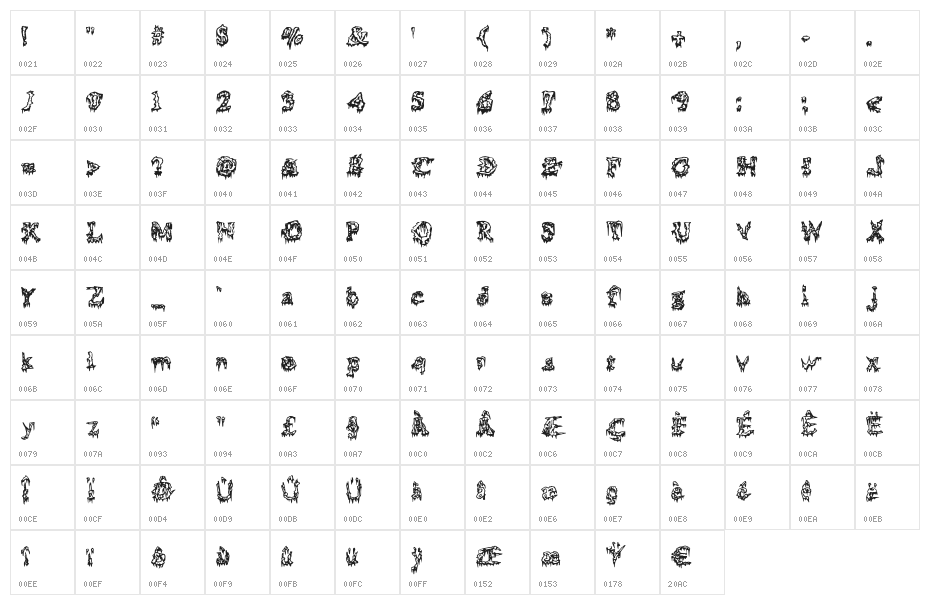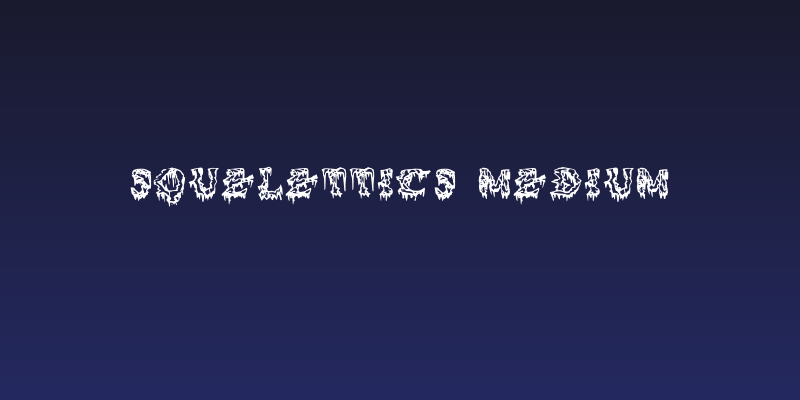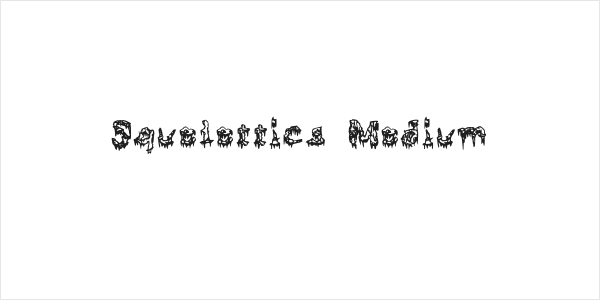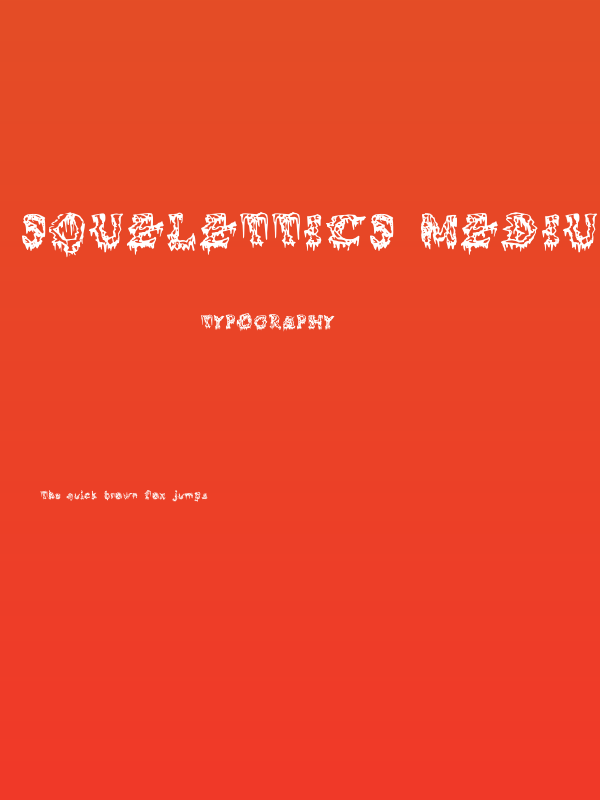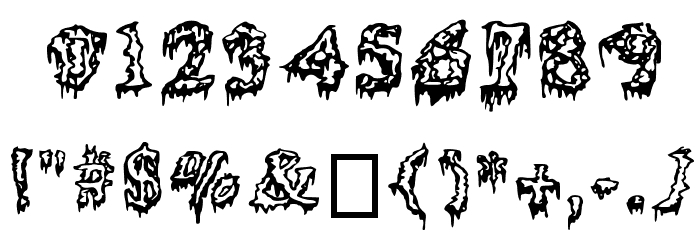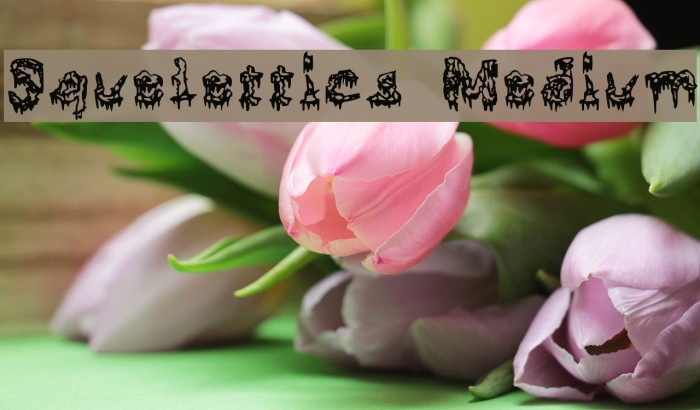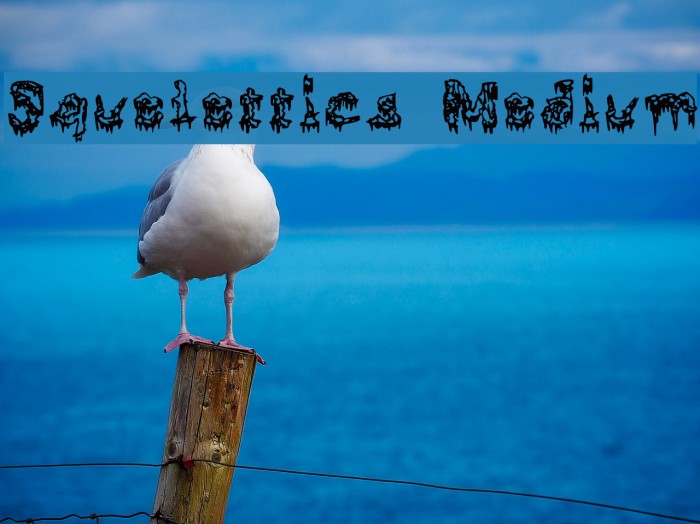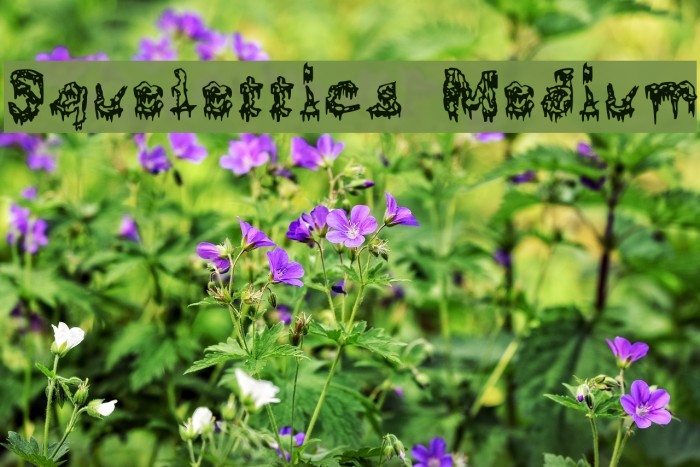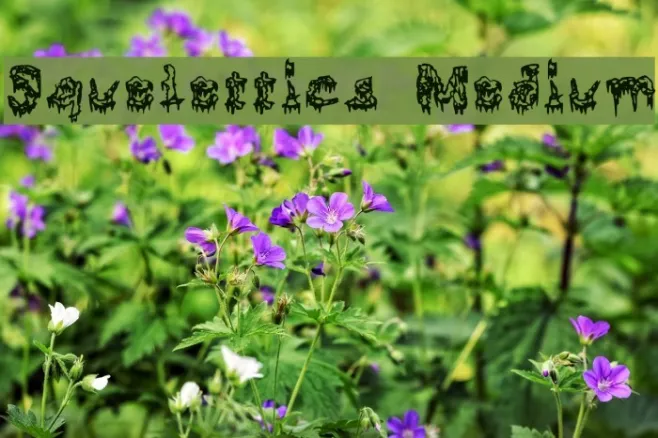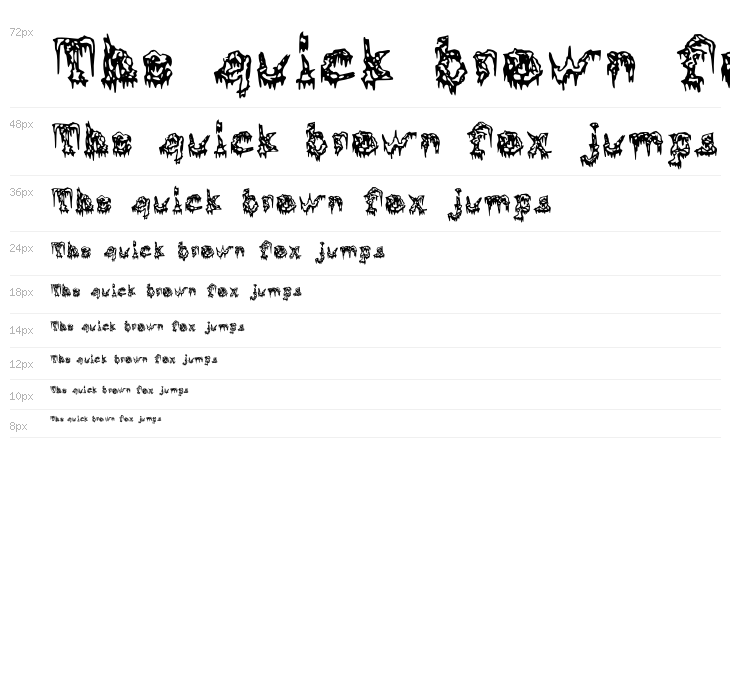
Squelettics Medium Font
Squelettics Medium Description
This font features a highly decorative and unique style, reminiscent of dripping or melting forms, giving it a spooky and eerie appearance. The characters are bold and heavily stylized, with jagged edges and irregular shapes that create a sense of movement and fluidity. The uppercase and lowercase letters maintain a consistent theme, with each character appearing as if it is melting or dripping downwards. Numbers and special characters follow the same design principles, ensuring uniformity across the font. This font is perfect for projects that require a dramatic and eye-catching typeface, particularly in themes related to horror, Halloween, or anything that demands a striking visual impact.
| Proposed Projects | Perfect for Halloween-themed designs, horror movie posters, haunted house flyers, and any project needing a dramatic, eerie typeface. |